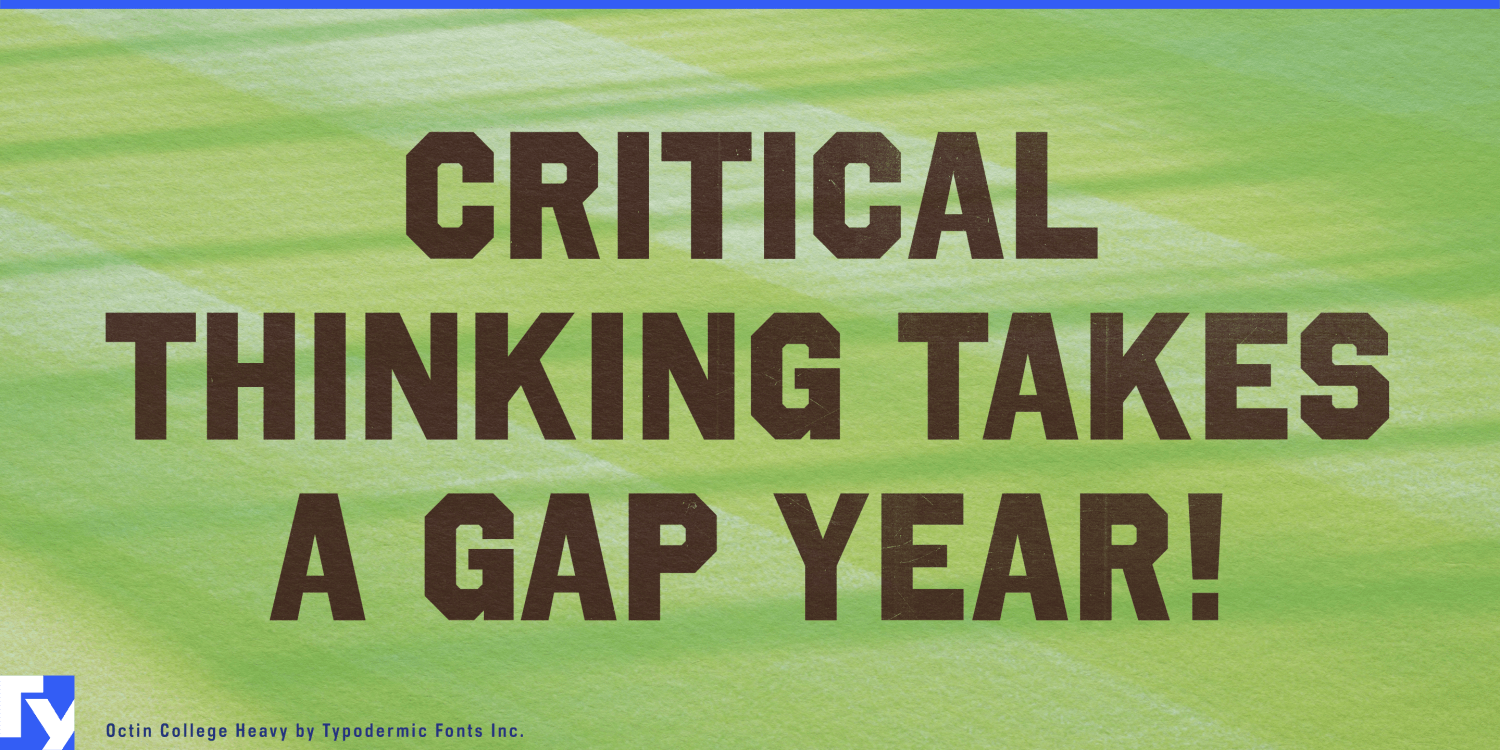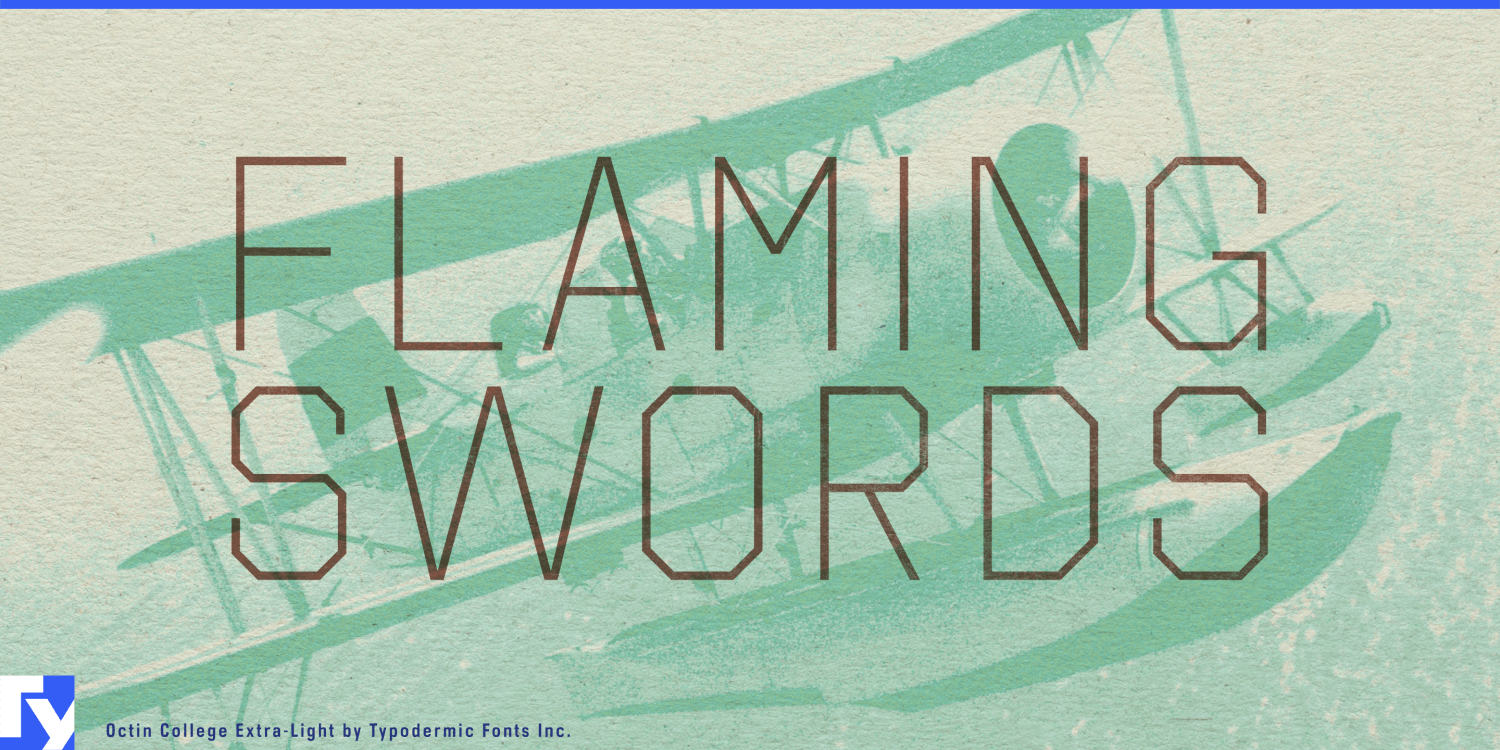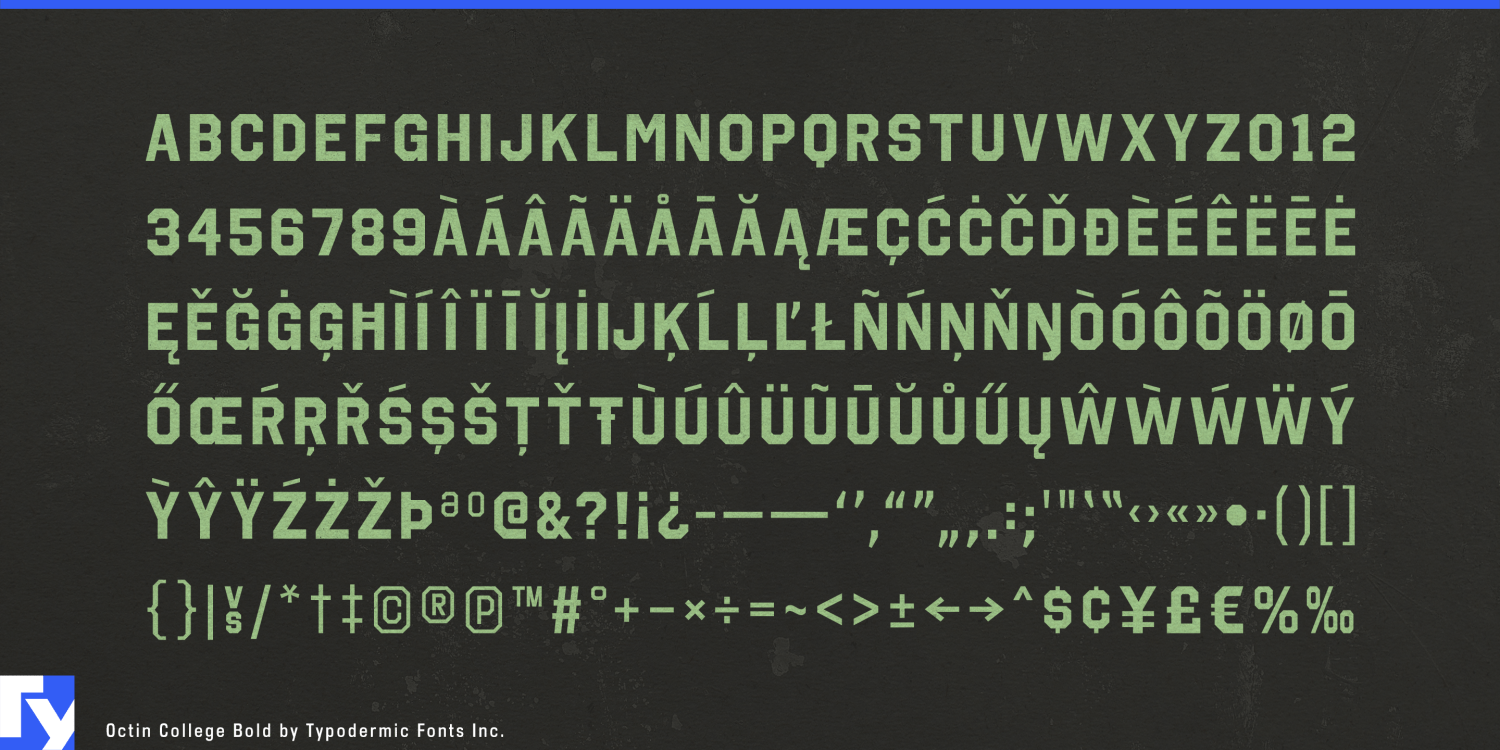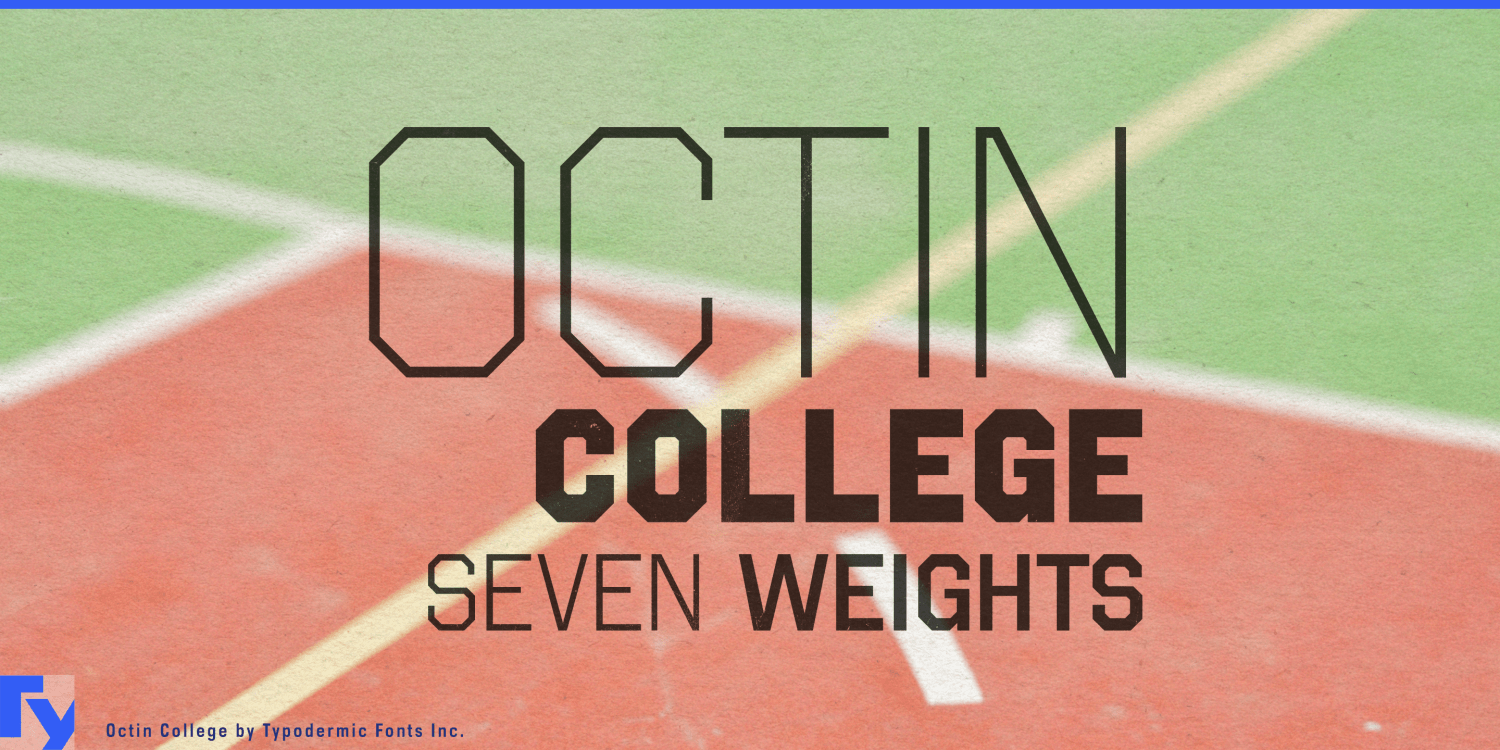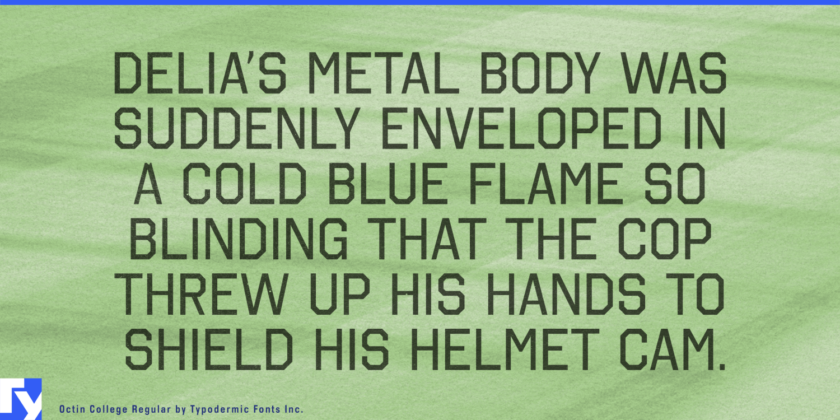
About Octin College
Step onto the quad of typographic excellence with Octin College, a typeface that embodies the spirit of academia while flexing serious design muscle. This isn’t just a typeface—it’s a full-ride scholarship to the university of bold,…